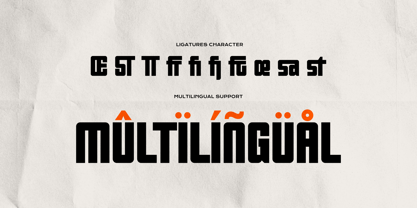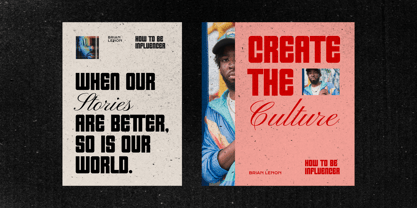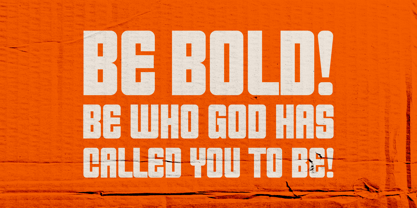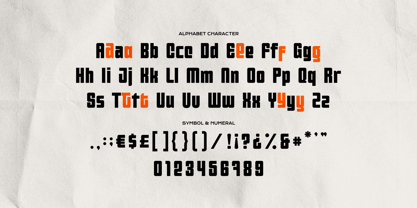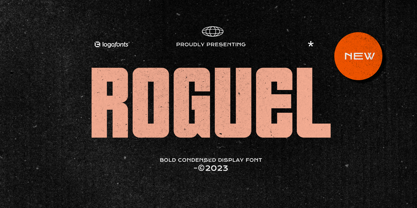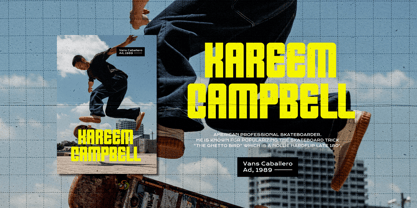
Roguel
por Logofonts
La familia tipográfica Roguel fue diseñada por Anna Safitri y publicada por Logofonts. Roguel contiene 1 estilos.
Roguel is a contemporary sans serif display typeface designed for bold, impactful typography. With clean, geometric lines and a sleek, minimalistic approach, this font exudes modern elegance. Its high contrast and strong presence make it perfect for large-scale headlines, branding, and digital use where clarity and style are paramount. Each letterform is crafted with precision, balancing readability with visual flair, making Roguel ideal for everything from fashion and tech to editorial and advertising designs. Whether used in print or on screen, it commands attention while maintaining a sophisticated, refined aesthetic.
Diseñadores: Anna Safitri
Editorial: Logofonts
Fundición: Logofonts